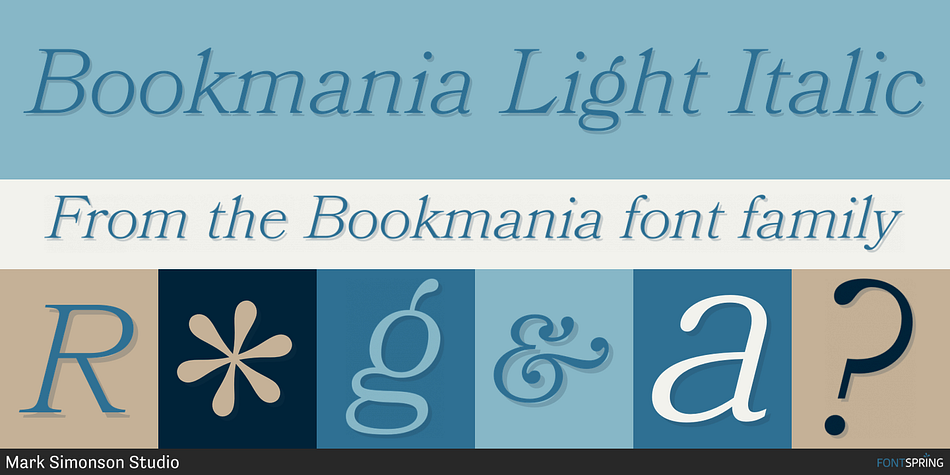
Bookmania Light Italic
Bookmania is a serif font family. This typeface has ten styles and was published by Mark Simonson Studio.
For the last four years, I’ve been working on a revival of the classic ATF Bookman Oldstyle and the Bookmans of the 1960s. But it’s not a slavish replica. It’s my own idea of what Bookman could be. It’s the revival I always wished someone would do.
I thought about doing a cursive italic, like others have tried, but in the end I decided that the original slanted roman should be preserved. Bookman has always been known for its swashes, so I also made a superset of the dozens of swash characters that have been added to Bookman over the years.
I wanted to go beyond its past and make something new. I added things that Bookman never had like small caps, old style figures, alternate characters, ligatures, stylistic sets, extensive language support, and more.
The family is composed of five weights—Light, Regular, Semibold, Bold, and Black, plus italics.
It’s my love letter to the classic Bookman: Bookmania.